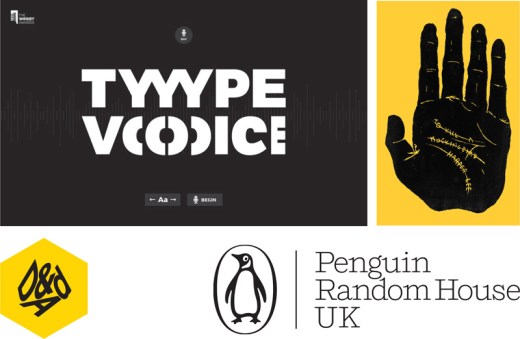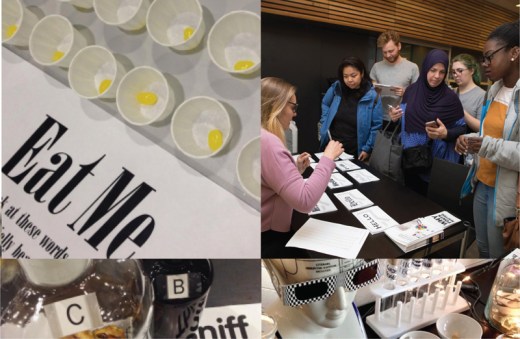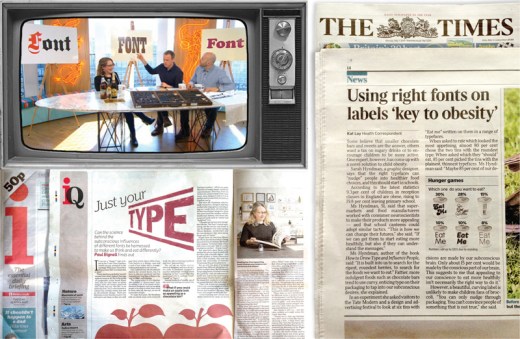
This is the third and final instalment reviewing Type Tasting in 2017: judging, the Type Tasting pop-up lab, publications and interviews.
Type Tasting founder Sarah Hyndman has continued her mission to make typography relevant and engaging beyond the world of design, and continues to work on proof-of-concept ideas to show that design can create positive change. She has judged design awards, the Type Tasting pop-up lab has continued to gather data, both her latest book and a new collaborative study have been published and she has appeared in interviews from The Times to Channel 4’s Sunday Brunch.
Judging
Sarah has been involved with the D&AD for a number of years; as a judge for their professional and student design awards, and as a bespoke typography course lead. She continues to work with students and was delighted to be invited to judge the Penguin student book cover awards this year.
• D&AD professional design awards 2017 (Yellow Pencil: Type Voice by Ogilvy New York)
• Penguin student book cover awards 2017 (winner: Madalyn Farley, Kingston University)
Pop-up Lab
Sarah has been researching perception of typefaces and multisensory typography for four years, both online and at events. The Type Tasting pop-up lab has appeared at a number of events this year to gather data both for scientific studies and a future book that Sarah will begin writing next year. Thank you to everybody who has taken part.
• Oxford Symposium (Hacking flavour perception: Design, technology, & gastrophysics)
• Stoke Newington Literary Festival
• Tate Modern
• Victoria & Albert Museum
• Shoreditch House
“A fascinating insight into how type can influence our feelings, our senses, and even our taste” Professor Charles Spence, University of Oxford
Published
The second of Sarah’s books were published this year, with a well-attended launch event at the Tate Modern and an appearance on Channel 4’s Sunday Brunch as their typography expert.
‘How to Draw Type & Influence People: An Activity Book’ by Sarah Hyndman, Laurence King Publishing. D&AD illustration award entry.
The latest collaborative study with Professor Charles Spence of the Crossmodal Research Laboratory at the University of Oxford has also been accepted for publication, this is the first to use data gathered by the pop-up lab earlier in the year.
‘The role of typeface curvilinearity on taste expectations and perception’ by Carlos Velasco, Sarah Hyndman (Type Tasting) & Professor Charles Spence (Department of Experimental Psychology, University Oxford), 2018, International Journal of Gastronomy and Food Science.
Interviews and appearances
A selection of interviews from live television to ones printed in real, inky newspapers.
• Channel 4’s Sunday Brunch interview
• Monocle Weekly Radio interview
• i Newspaper ‘Just your type: Can the science behind the subconscious influences of different fonts be harnessed to make us think and eat differently?’
• It’s Nice That ‘“Type alters what you smell” and other insights from Sarah Hyndman’s latest type-based research’
• The Times ‘Using right fonts on labels could tackle obesity’
• Design Week ‘It’s easy to see typography as an invisible discipline’
• The Guardian ‘Just my type: how Cooper Black became 2017’s most fashionable font’
• Total Film ‘Type Cast. What does a film poster’s typography tell us?’
• Grafik Magazine ‘Unknown Pleasures’
• The Bookseller ‘Type Tasting’